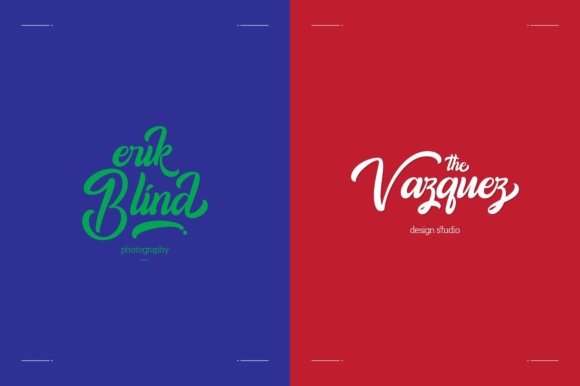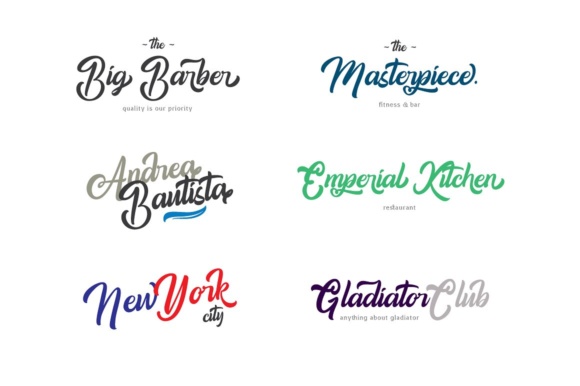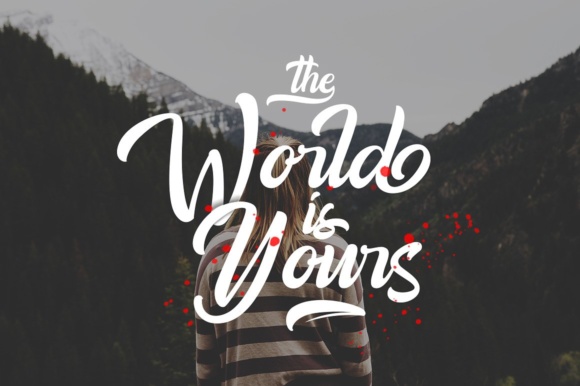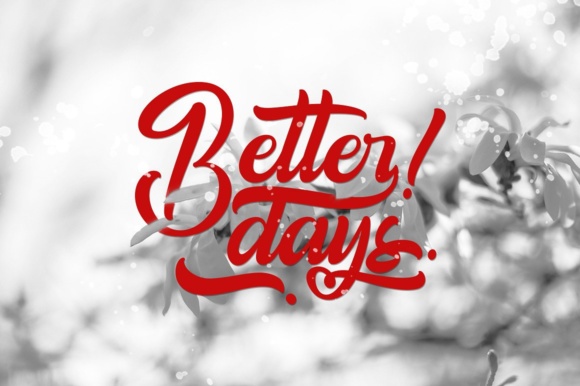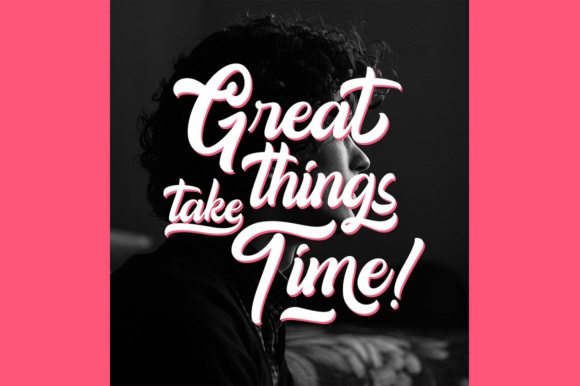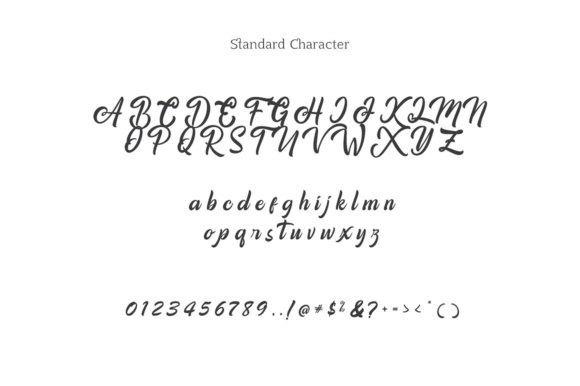
Introducing Amigos Font: Elevate Your Designs with Elegant Hand Lettering
In the world of digital design, typography plays a crucial role in conveying messages and capturing attention. For crafters, designers, and DIY enthusiasts, finding the perfect font can make all the difference in creating visually stunning projects. This is where Amigos Font comes in – a modern hand lettering typeface that adds an elegant touch to any design. In this article, we’ll explore the features and benefits of Amigos Font, and how it can elevate your display designs, crafting projects, and more.
The Amigos Font: A Modern Hand Lettering Typeface
Amigos Font is a beautifully crafted, modern hand lettering typeface that boasts striking letters with an elegant touch. Its unique design makes it perfect for display designs, where readability and visual appeal are paramount. Whether you’re creating greeting cards, party invitations, or baby stroller cards, Amigos Font is an excellent choice.
Key Features of Amigos Font
- Elegant Hand Lettering: Amigos Font features beautiful, hand-crafted letters that add a touch of sophistication to any design.
- Good Readability: Despite its elegant design, Amigos Font remains highly readable, making it perfect for display designs and body text.
- Modern Aesthetic: Amigos Font has a distinctly modern feel, making it ideal for designers and crafters looking to create contemporary projects.
- Versatile: Amigos Font can be used for a wide range of projects, from crafting and DIY to digital design and marketing materials.
Featured Projects: Get Creative with Amigos Font
Amigos Font has been featured in several creative projects, showcasing its versatility and potential. Here are a few examples:
- Crafting Baby Stroller Cards: Create adorable and elegant baby stroller cards with Amigos Font. Its readability and hand-crafted charm make it perfect for sharing special moments.
- Creating Paper Diamond Ring Party Cards: Make your party invitations shine with Amigos Font. Its modern aesthetic and elegant touch will surely impress your guests.
- Making Fun Sunflower Greeting Cards: Brighten up someone’s day with a cheerful sunflower greeting card, crafted with Amigos Font. Its friendly and approachable feel makes it ideal for expressing your sentiments.
Why Choose Amigos Font?
With so many fonts available, why choose Amigos Font? Here are a few compelling reasons:
- Unique Design: Amigos Font offers a distinctive, hand-crafted design that sets it apart from more traditional fonts.
- Ease of Use: Amigos Font is easy to read and works well in a variety of design contexts, from digital to print.
- Time-Saving: With Amigos Font, you can create stunning designs quickly and efficiently, saving you time and effort.
Tips for Using Amigos Font
To get the most out of Amigos Font, here are a few tips:
- Experiment with Sizes: Amigos Font looks great in various sizes, from small body text to large display headings.
- Pair with Other Fonts: Combine Amigos Font with other fonts to create visually interesting and dynamic designs.
- Play with Colors: Amigos Font works well with a range of colors, so don’t be afraid to experiment and find the perfect hue for your design.
Amigos Font is a versatile and elegant hand lettering typeface that’s perfect for designers, crafters, and DIY enthusiasts. Its unique design, good readability, and modern aesthetic make it an excellent choice for display designs, crafting projects, and more. By incorporating Amigos Font into your creative projects, you’ll be able to elevate your designs and create stunning visual experiences. So why wait? Give Amigos Font a try today and discover the difference it can make!